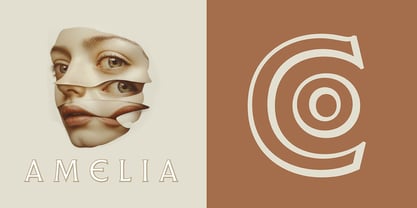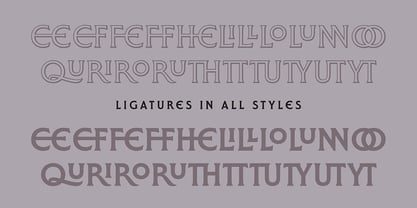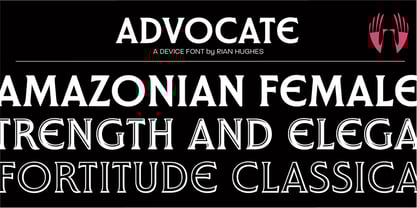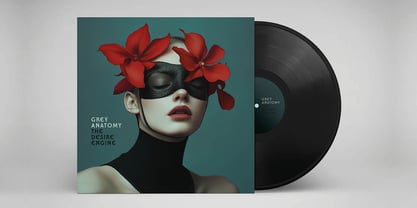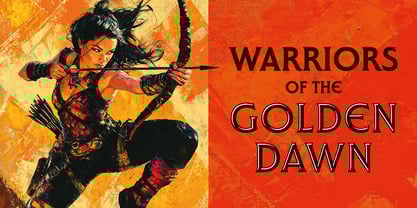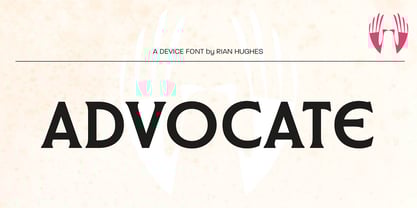
Advocate
by Device
The Advocate Font Family was designed by Rian Hughes and published by Device. Advocate contains 3 styles and family package options. More about this family
Advocate is an elegant and finely constructed all-capitals serif that balances strength and beauty. The almost monoline weight stress lend it an impressive solidity missing from more delicate serif faces. Two decorative variants – shaded and incised – add an extra premium touch. Its potential applications range from action films with strong female leads, upmarket cosmetics, historical dramas or exclusive hotels and spas.
An optional straight-backed E is available in all styles, and can be activated in the Opentype panel or chosen from the Glyphs palette in your graphics application.
To further customise your settings and logos a select range of ligatures are also included.